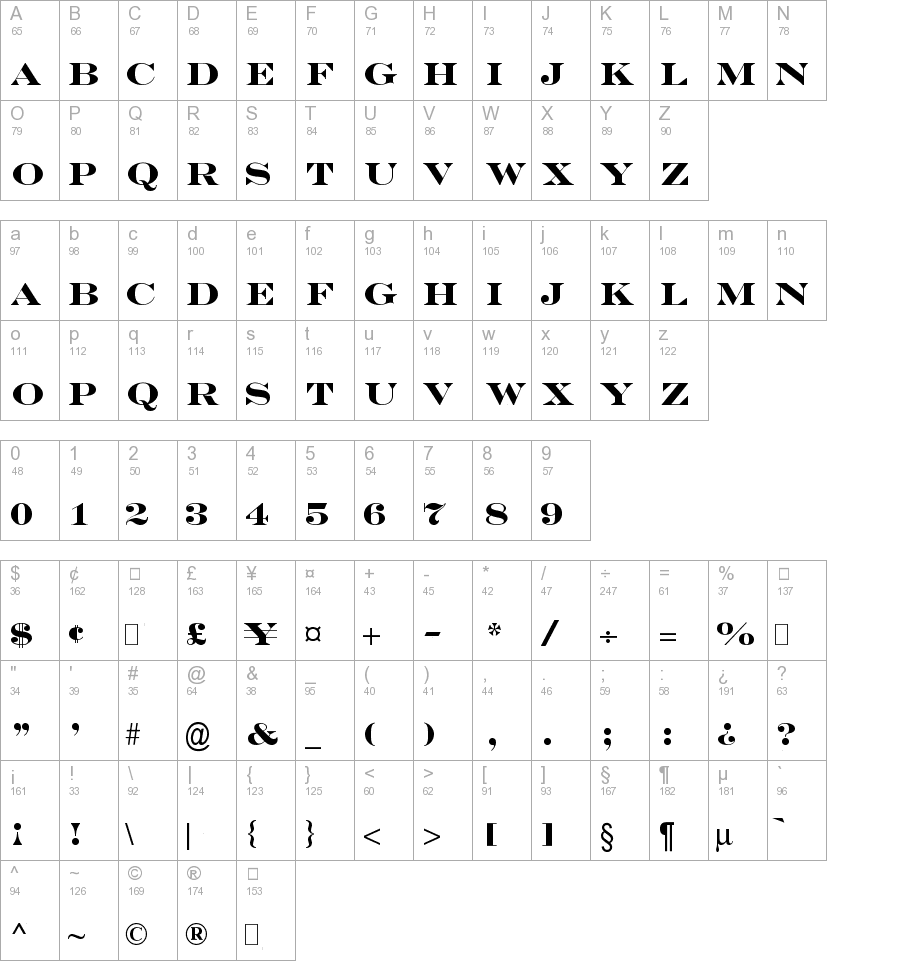
Engravers Mt Font Bold
If you happen to use engravers mt in small sizes, download. Also, the engravers mt std bold font is perfect for branding projects, housewares designs,. Free fonts often have not all characters and signs, and have no kerning pairs (avenue ↔ a venue, tea ↔ t ea).
You can use the engravers mt to create interesting designs, covers, shop and store name and logos. Even so, the font's very thin hairlines printed clearly, a tribute to the engraver's art. The metal version was available in one size only: